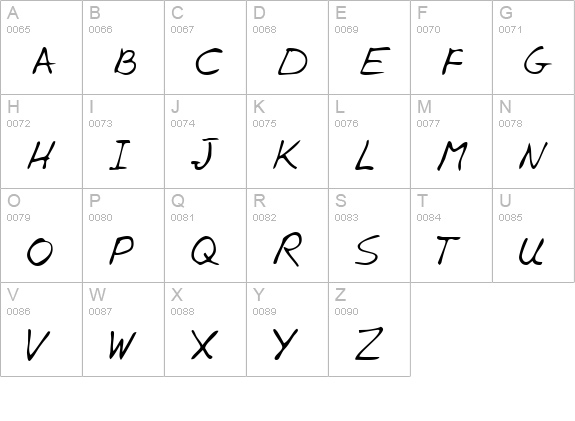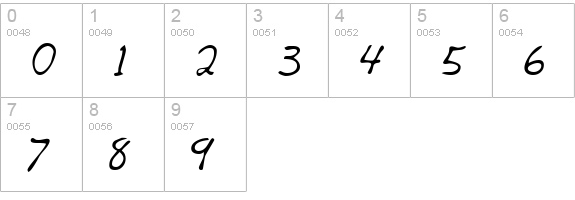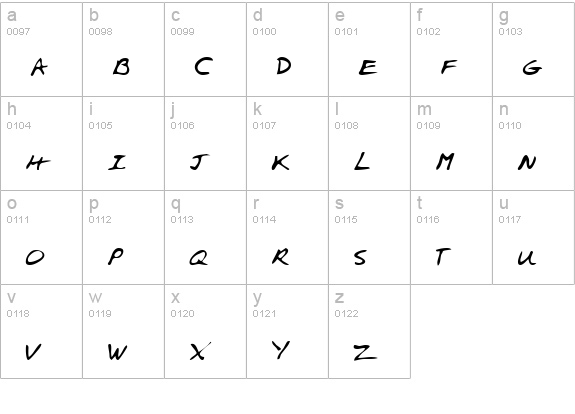
AlexsHand Regular Font Details
AlexsHand Regular is the standard, neutral variant in the AlexsHand typeface family \xE2\x80\x94 well suited to general body text, paragraphs, and standard typographic work.
AlexsHand Regular is a charming and playful handwritten font that will add a personal touch to your designs. With its casual and inviting style, this font is perfect for projects that require a friendly and approachable feel. Whether you're creating greeting cards, invitations, or social media graphics, AlexsHand Regular will bring a unique and whimsical flair to your work. The best part? AlexsHand Regular is available for free download at FontsMarket.com. Now you can easily add this versatile font to your collection without breaking the bank. Don't miss out on this opportunity to enhance your designs with the delightful AlexsHand Regular font. Download it now and let your creativity shine!